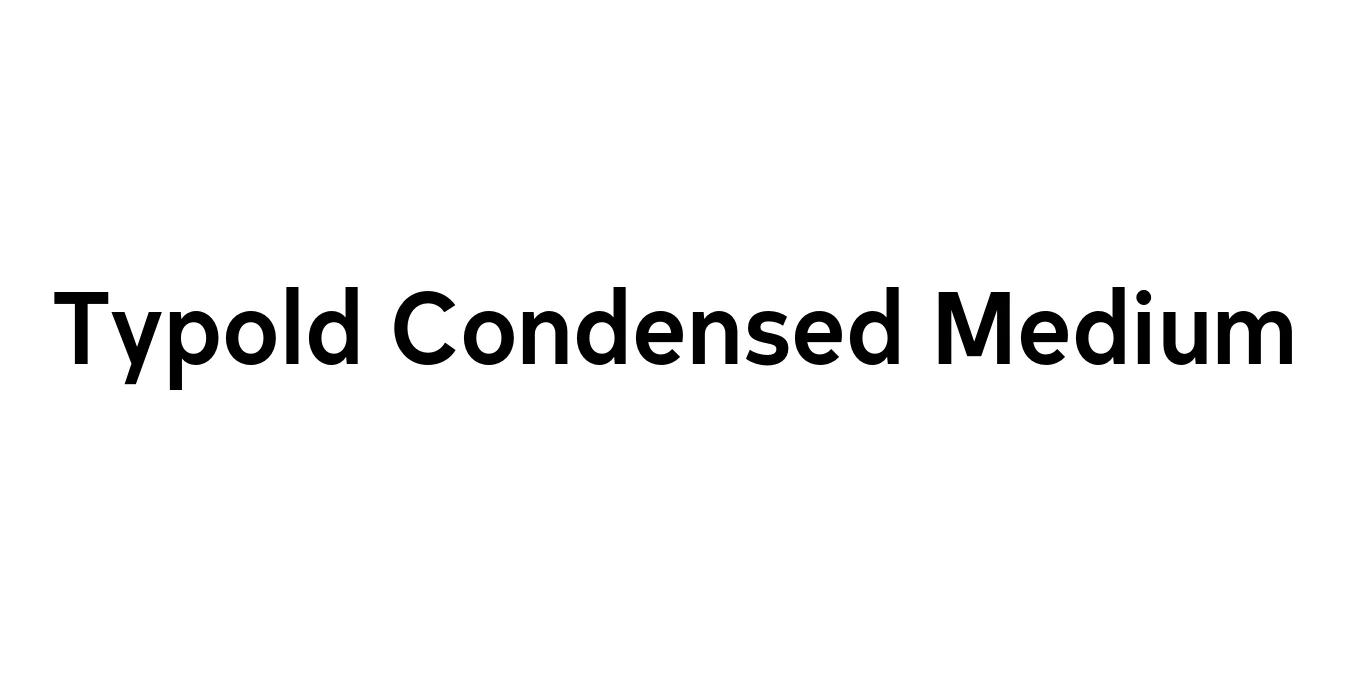
Typold Condensed Medium
Designed by Jonathan Hill
Typold Condensed Medium is a sophisticated geometric sans-serif typeface designed by Jonathan Hill for The Northern Block. Part of the broader Typold family, this condensed weight was meticulously crafted to provide a balance between mathematical precision and human-centric design. It offers a refined take on the traditional geometric style, focusing on improved readability in tight horizontal spaces while maintaining the sleek, technical aesthetic that characterizes the entire collection.
This typeface features clean lines and a large x-height, making it exceptionally versatile for both digital and print applications. The design incorporates advanced OpenType features and supports a vast range of languages, ensuring it meets the demands of global branding. Whether used for technical documentation or high-end fashion editorial, Typold Condensed Medium delivers a modern and professional appearance that remains legible across various screen resolutions and print media.
Typold Condensed Medium Best Uses
Highly effective for navigational menus and compact headers.
Optimized for readability in space-constrained user interfaces.
Perfect for magazine subheads and dense column layouts.
Ideal for tech companies seeking a modern, efficient corporate identity.